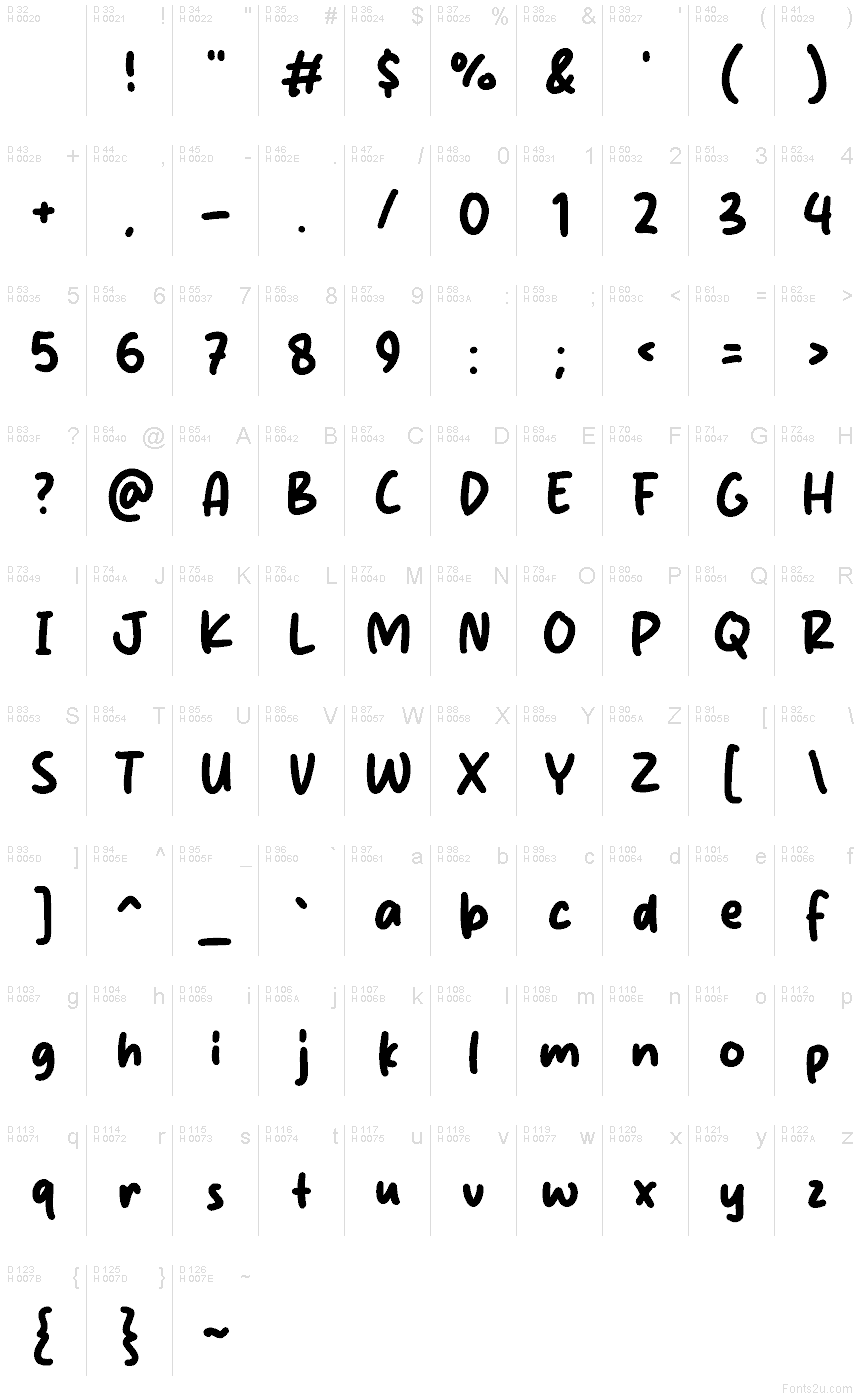
Cashew Nut
Cashew Nut font by MJType is a bold handwritten style that balances modernity with casual sophistication. Its friendly and approachable vibe evokes warmth and adds a personal touch to contemporary applications. Delicate yet distinct, it fulfills all user preferences for an authentic design.